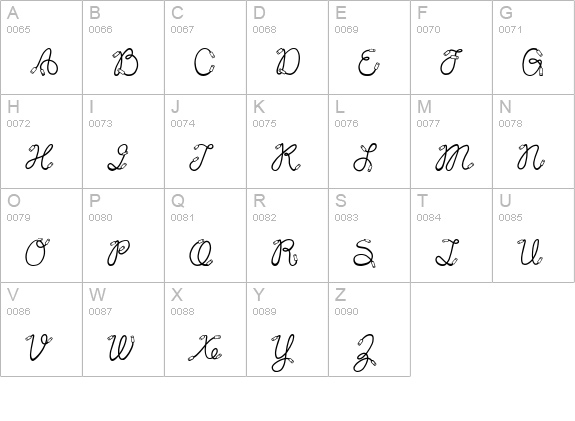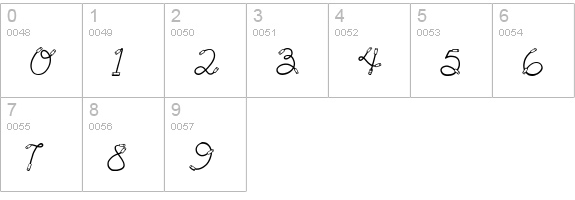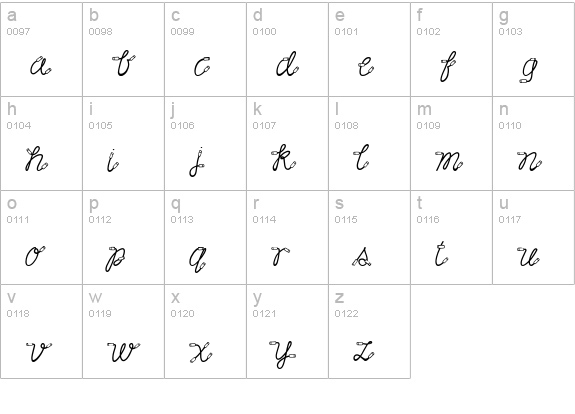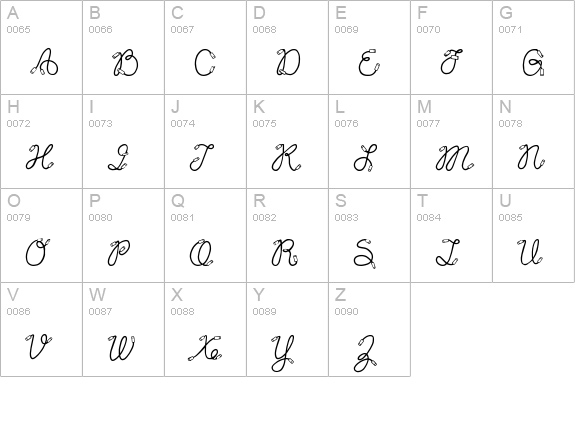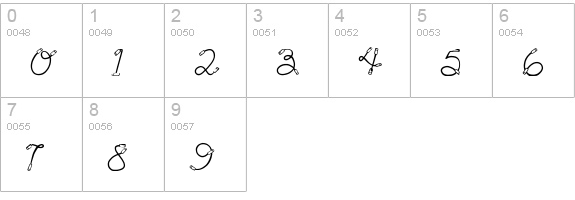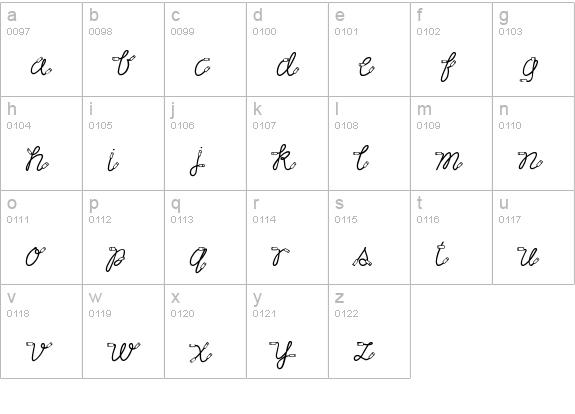
CK Jump Rope Font Details
Introducing CK Jump Rope font, a vibrant and energetic typeface that captures the essence of fun and movement. This playful font is perfect for designs that need a touch of whimsy and liveliness. CK Jump Rope features bouncy letterforms and a hand-drawn aesthetic that adds a unique charm to any project. Best of all, CK Jump Rope font is available for free download at FontsMarket.com. So, whether you're working on a children's book, a fitness poster, or a creative branding project, this font is sure to bring a smile to your audience's faces. Add a dose of playfulness to your designs with CK Jump Rope font today!